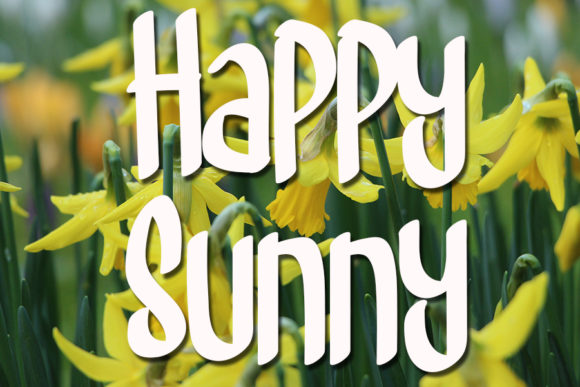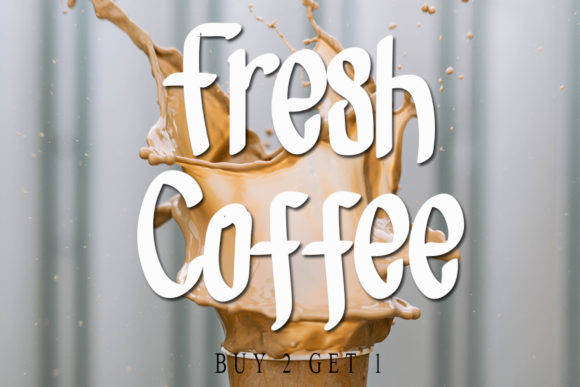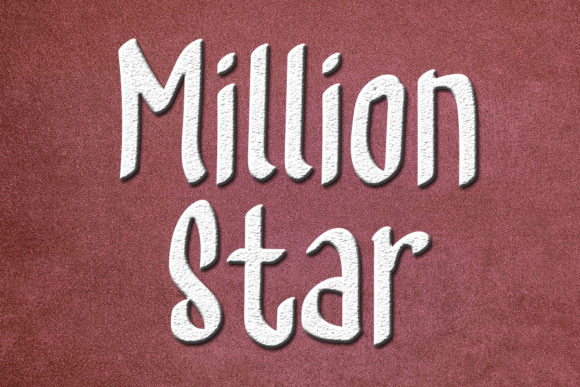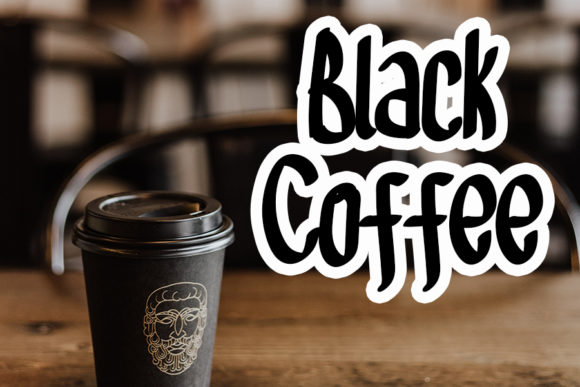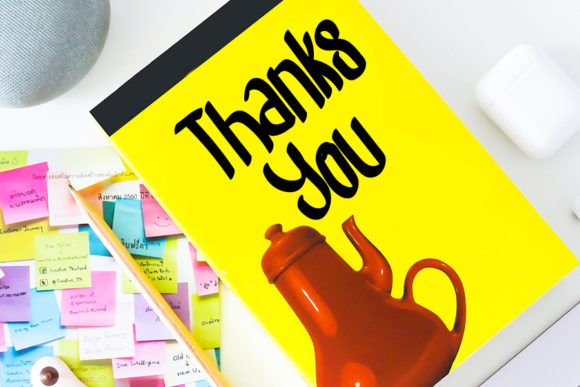
The Magical World of Alladin Font
I’ll never forget the time I was working on a project for a children’s birthday party invitation. I had the design concept all sorted out, but I was stuck on finding the perfect font. The invitation needed to be fun, playful, and eye-catching. That’s when I stumbled upon the Alladin font. It was like a magic lamp had been rubbed, and out came this beautiful, cute display font that instantly added a joyful touch to my design.
An Honest Review of Alladin Font
What I Love About Alladin Font
- ✨ Cute and Playful Design: Alladin font is perfect for designs that need a fun and youthful vibe. Its unique and quirky style makes it stand out from more traditional fonts.
- ✅ Easy to Read: Despite its playful nature, Alladin font is surprisingly easy to read, even in larger blocks of text.
- 💫 Versatile: This font can be used for a wide range of design projects, from invitations and posters to social media graphics and more.
While Alladin font is amazing, there are a few things to keep in mind:
- 🤔 Legibility at Small Sizes: Alladin font can become a bit tricky to read at very small sizes. It’s best used for headlines or larger text.
- ⚠️ Overuse: Because it’s so fun and playful, it’s easy to overuse Alladin font. Make sure to balance it with other fonts or design elements to avoid overwhelming your design.
Alladin font comes with a range of OpenType features and glyphs that can enhance your design. These may include:
- Stylistic Alternates: Swappable letters or symbols that offer alternative styles.
- Ligatures: Special character combinations that create unique visual effects.
- Glyphs: Additional symbols or icons that can be used to add more personality to your text.
The Backstory of Alladin Font
The Alladin font was designed with the intention of bringing a bit of magic to your designs. Inspired by the classic tale of Aladdin and the magic lamp, this font is meant to evoke a sense of wonder and joy. Whether you’re a designer, crafter, or creative hobbyist, Alladin font is sure to add a touch of whimsy to your work.
| What type of designs is Alladin font best suited for? | Alladin font is perfect for designs that need a fun and playful touch, such as children’s party invitations, social media graphics, and posters. |
| Is Alladin font easy to read? | Alladin font is surprisingly easy to read, even in larger blocks of text. However, it’s best used for headlines or larger text due to its playful nature. |